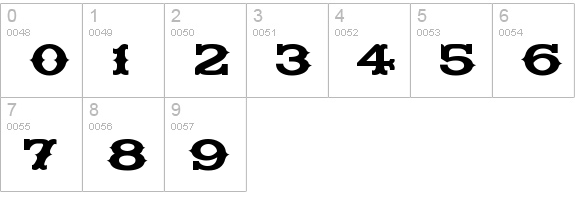
MadfontThorns Font Details
MadfontThorns is a captivating and bold display font that exudes a sense of edgy sophistication. With its sharp angles and intricate details, this font is perfect for making a statement in any design project. Whether you're creating posters, logos, or branding materials, MadfontThorns will definitely leave a lasting impression. What's even better is that MadfontThorns is completely free to use! You can easily download this stunning font at FontsMarket.com and start incorporating it into your work right away. Don't miss out on the opportunity to elevate your designs with the unique flair of MadfontThorns.